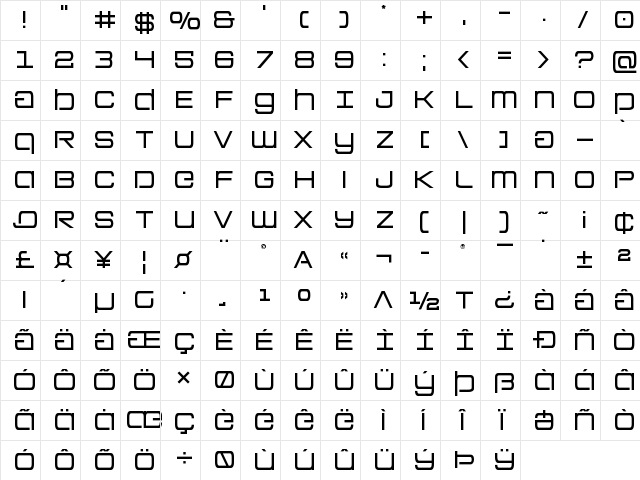
Colony Marines Title Regular
Design Context for Colony Marines Title Typeface
Colony Marines Title offers clean, dependable letterforms without strong stylistic allegiance, making it a practical choice for designers who need flexibility.
Pro Tip: Use Colony Marines Title in both headline and body roles to test its range before committing to a single application.